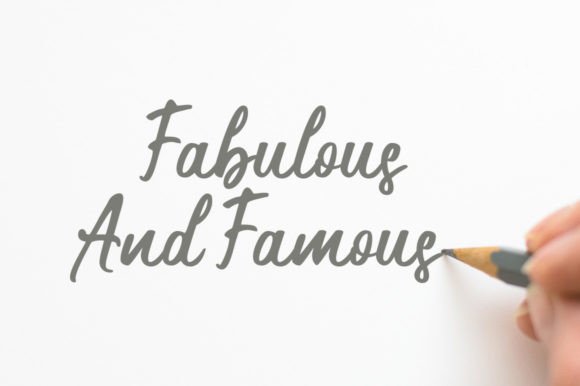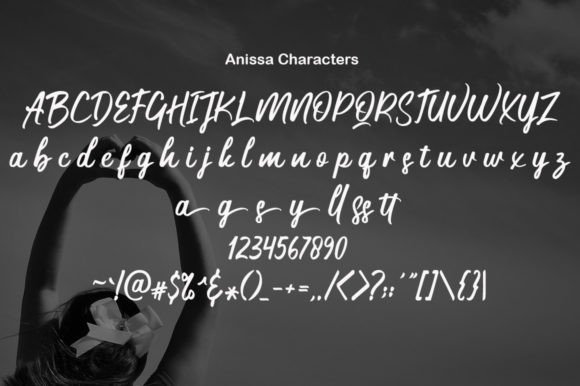
The Perfect Brush Stroke: Discovering Anissa Font
Remember that moment when you stumbled upon the perfect font for your next design project? The one that seemed to capture the essence of your creative vision and transport your work to the next level? For designers, this moment is a dream come true. And for those who’ve been searching for that elusive brush stroke, we’ve got exciting news.
| 👤 Author | akifatype |
Meet Anissa Font, a modern smooth brush handwritten font that embodies the perfect blend of organic, dynamic, and energetic style. Whether you’re crafting a title, signature, logo, or correspondence, Anissa Font is the perfect companion to elevate your designs. Its versatility makes it an ideal choice for various applications, from wedding invitations to signage and labels. With Anissa Font, designers can add a touch of personality and flair to their work, making it truly unforgettable.
Anissa Font Key Features
- Font Family: Anissa
- Unique Characteristics: Anissa font features a unique blend of modern and vintage styles, with a distinctive flair and sophistication
Anissa Font Review
I recently had the chance to work with Anissa Font, and I have to say it’s been an interesting experience. ✨ One of the things that really works well is the unique, handwritten feel of the font. It’s perfect for adding a touch of personality to your designs without going overboard. The bold and regular weights are also well-suited for a variety of applications, from headlines to body text.
- ✨ Handwritten feel adds a personal touch to designs
- ✨ Bold and regular weights are versatile
- ✨ Good for creating a unique, attention-grabbing look
However, there are a few limitations to consider. ⚠️ The font can be a bit tricky to read at smaller sizes, and the letter spacing can be a bit inconsistent. Additionally, the italic and oblique styles could be more refined.
- ⚠️ Can be difficult to read at small sizes
- ⚠️ Inconsistent letter spacing
- ⚠️ Italic and oblique styles could be improved
Overall, I think Anissa Font is a solid choice for designers who want to add a bit of whimsy to their projects. While it’s not perfect, it’s definitely worth considering for the right project.
Use Anissa Font for:
- Headings and titles in presentations and documents.
- Body text in brochures, flyers, and posters.
- Web design projects, such as headings and menu items.